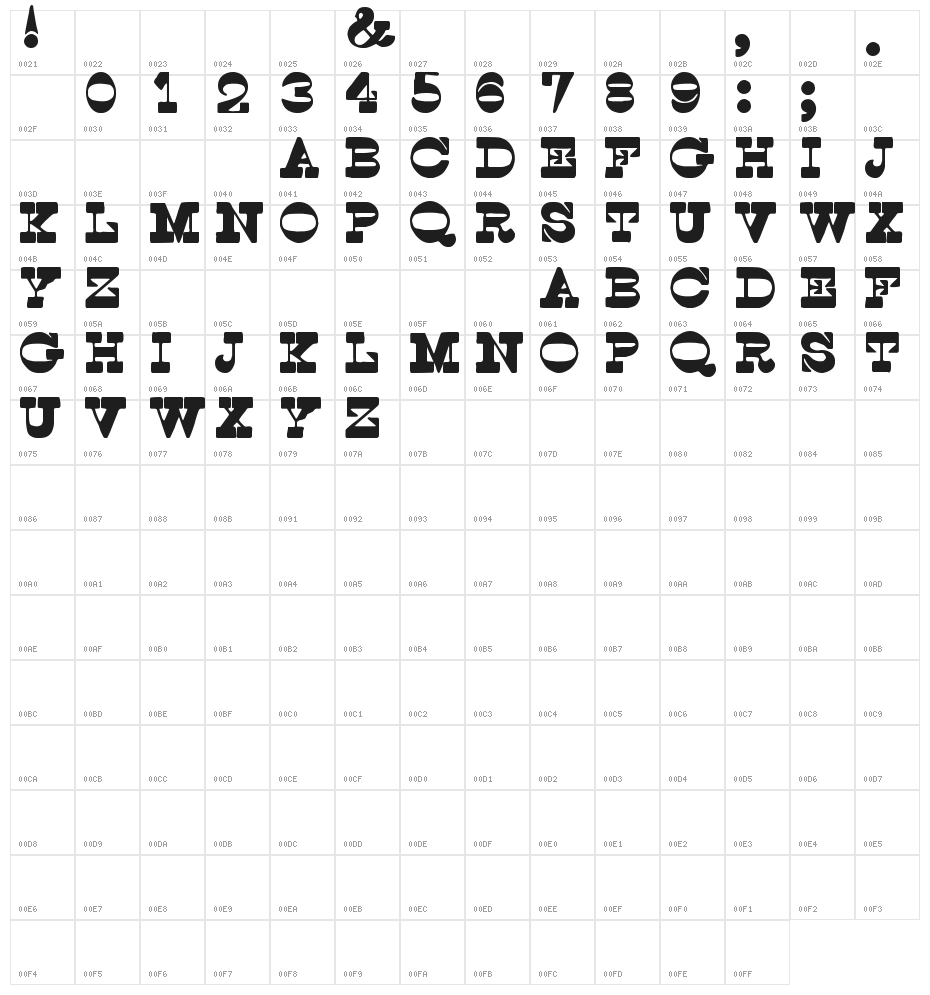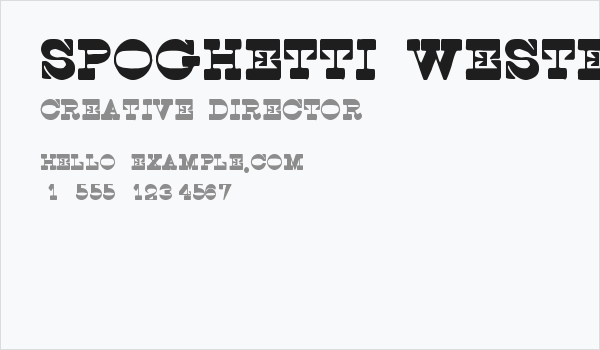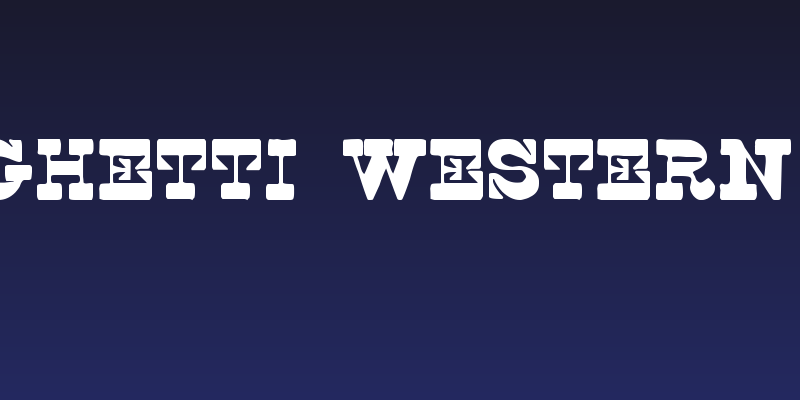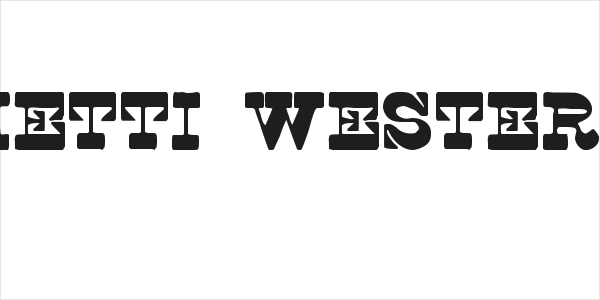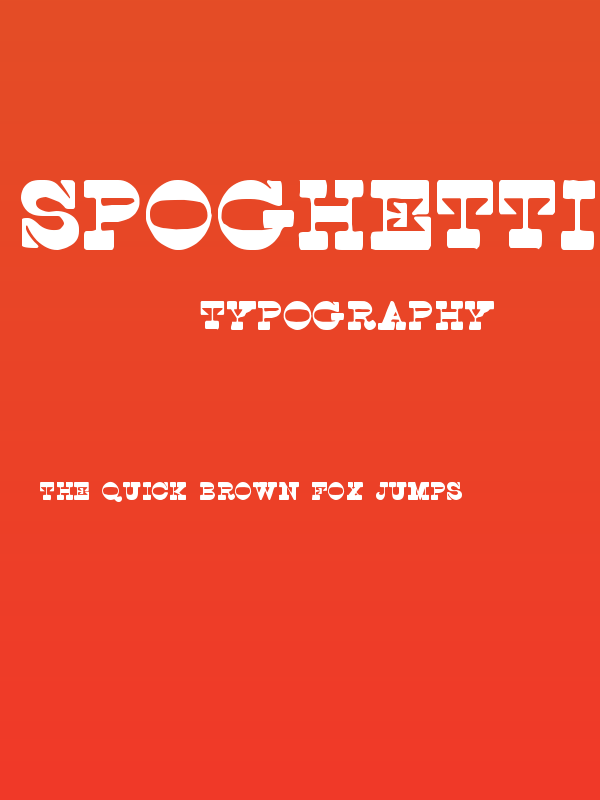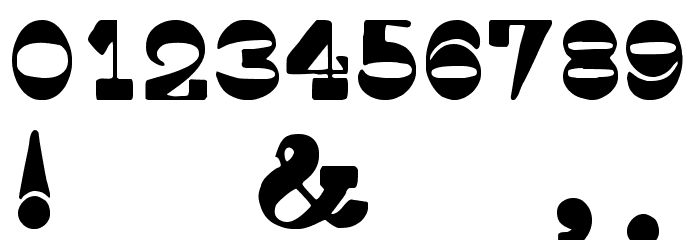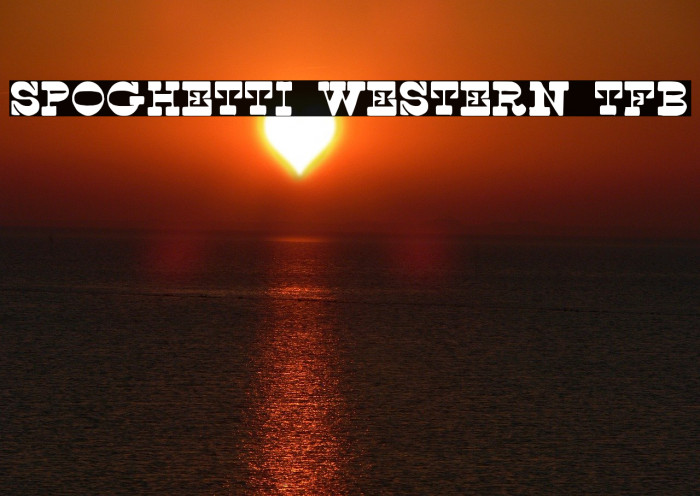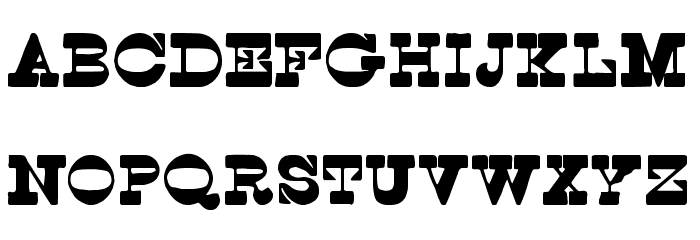
Spoghetti Western tfb Font
| Projets proposés | Ideal for movie posters, themed event invitations, branding for Western-themed products, or any design needing a bold, nostalgic touch. |